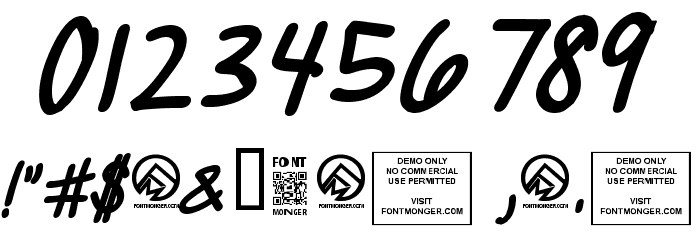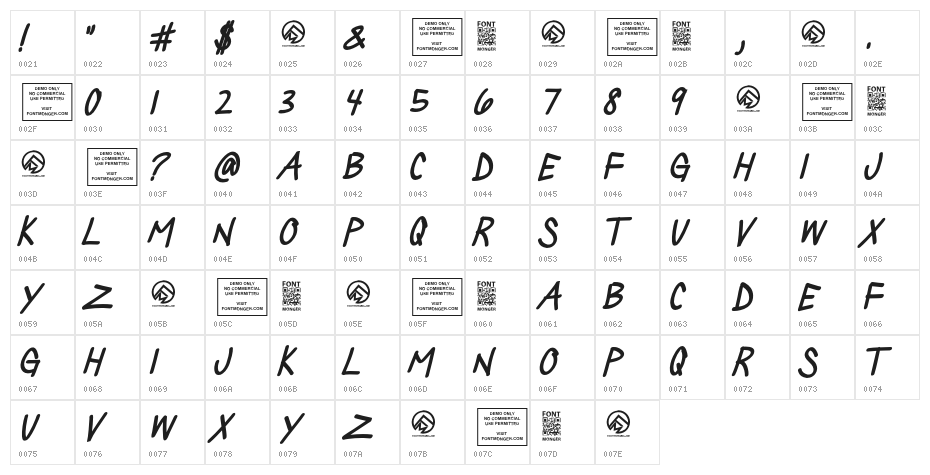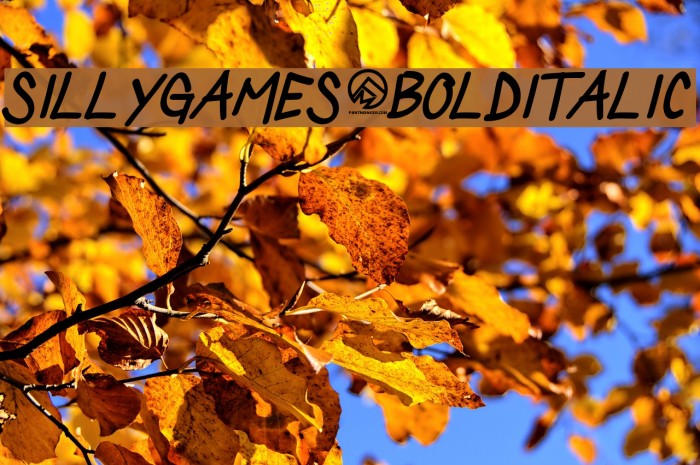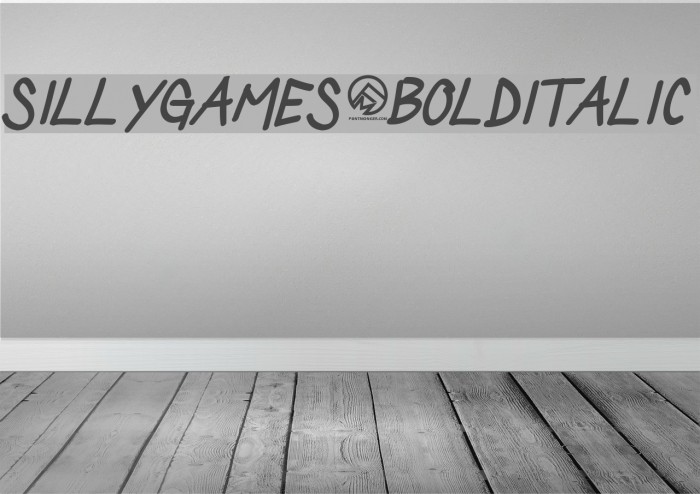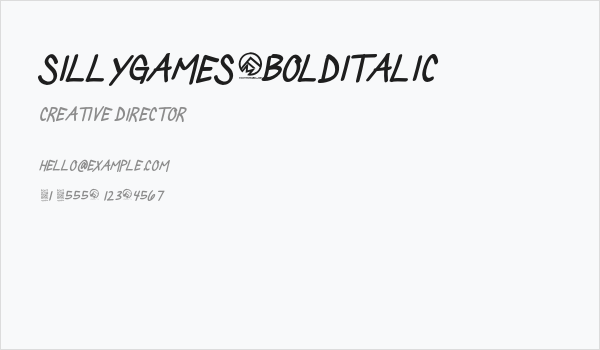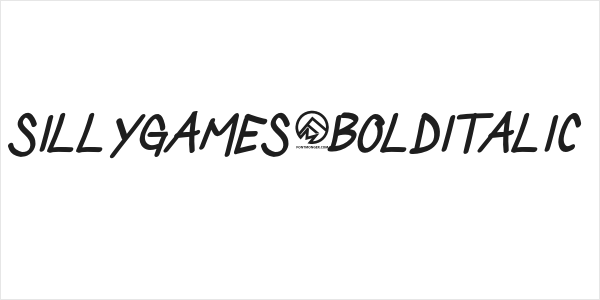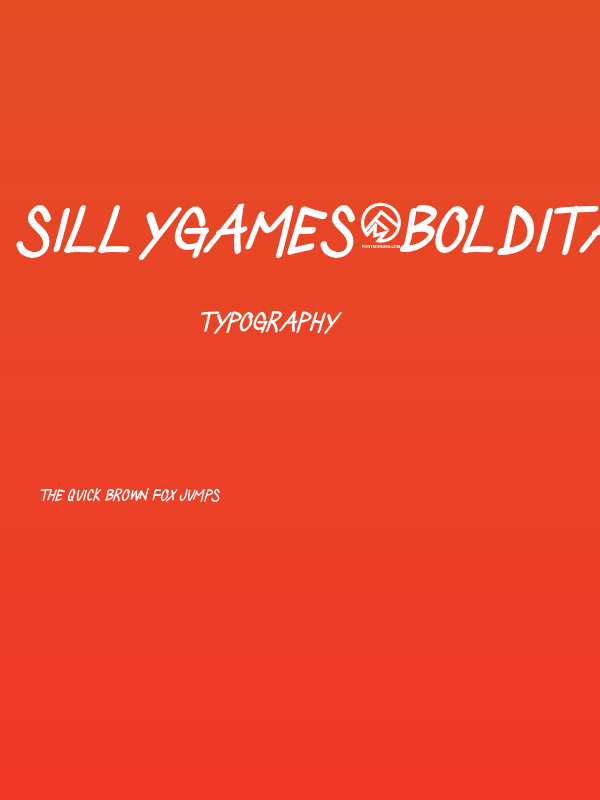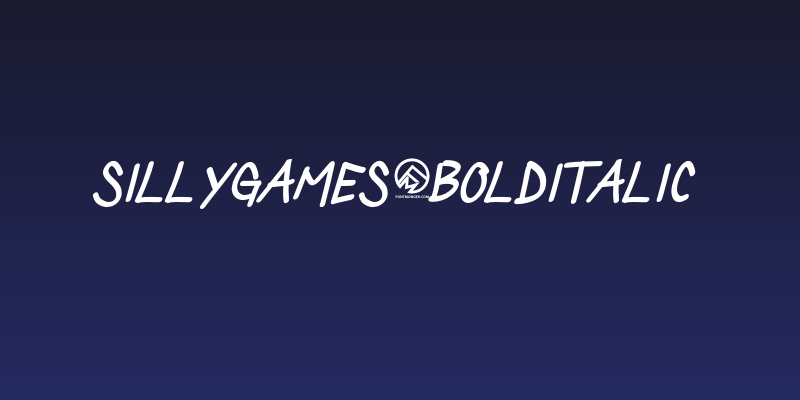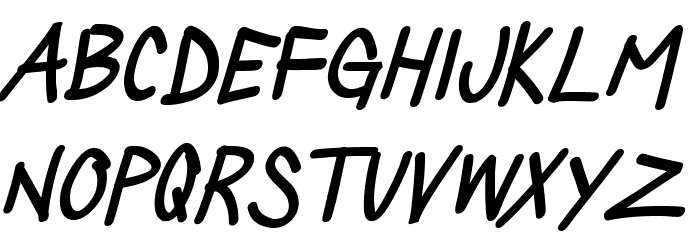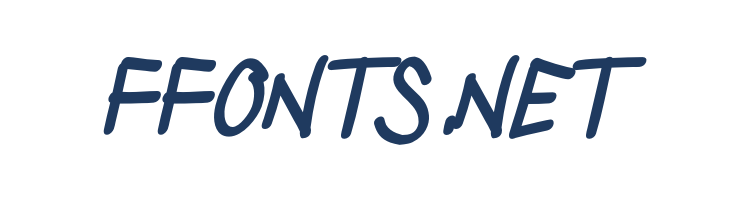
SillyGames-BoldItalic Font
SillyGames-BoldItalic Description
This playful and energetic font features a bold and italicized style, giving it a dynamic and lively appearance. The characters are slightly slanted, adding a sense of motion and excitement. The strokes are thick and consistent, providing a strong visual impact. The font maintains a handwritten feel, with smooth curves and rounded edges that contribute to its approachable and friendly look. The spacing between characters is moderate, ensuring readability while maintaining its casual charm. This font is well-suited for projects that require a fun and informal touch.
| Proposed Projects | Ideal for children's books, playful branding, greeting cards, and casual invitations. |